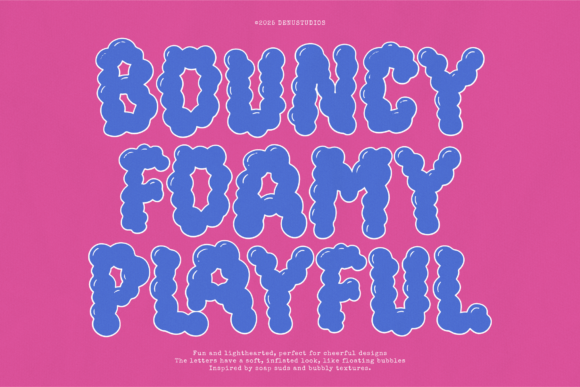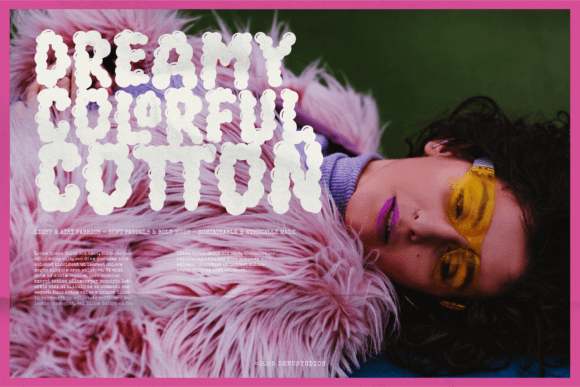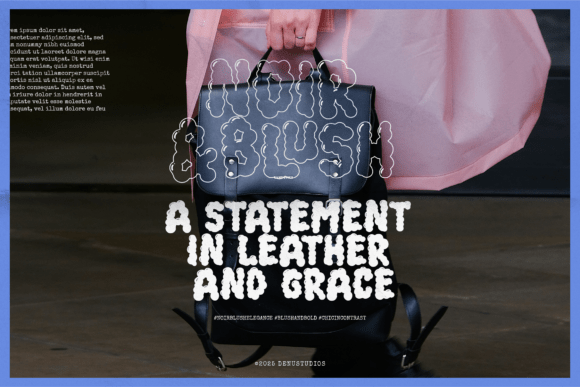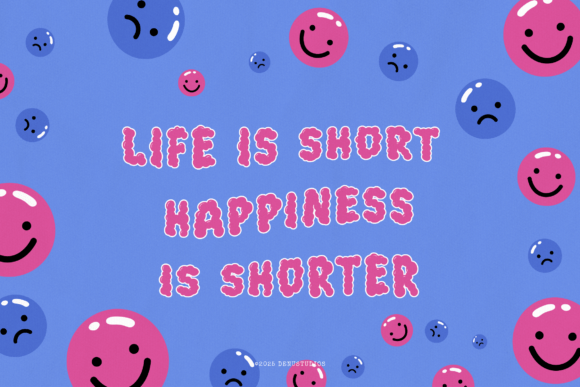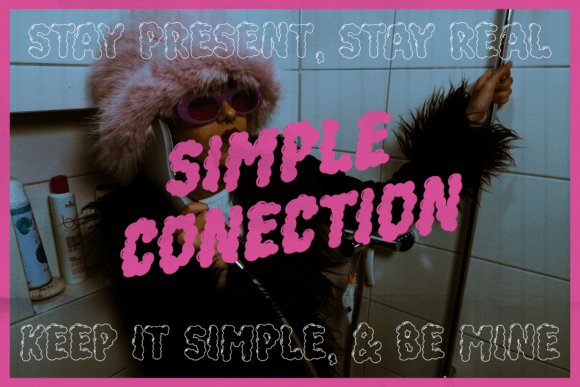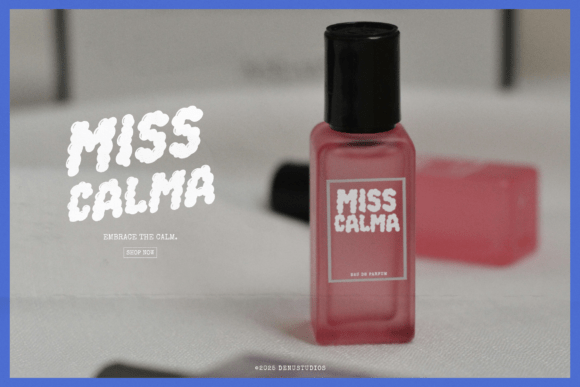
Introduction to Fabilo Soap Font
Fabilo Soap is a fun and bubbly display font with a playful, bold style.
Its soft, rounded letterforms mimic the look of soap bubbles, making it perfect for kids’ designs, branding, packaging, posters, and creative projects .
Key Features of Fabilo Soap Font
Why Choose Fabilo Soap Font?
Fabilo Soap Font offers exceptional quality and versatility, making it a valuable addition to your design toolkit. Whether you’re creating for personal projects or commercial use, Fabilo Soap Font delivers professional results.